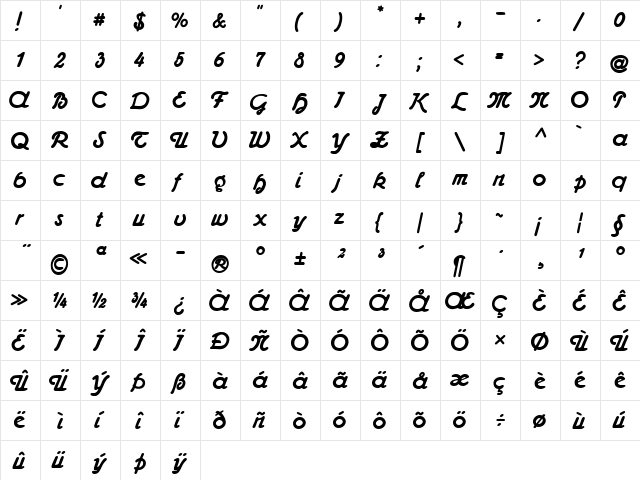
Admiral CAT Regular
| Foundry | Peter Wiegel Nach einer Hausschrift v. W. Woellmers SchriftguߠBerlin |
| Designer | Hausschrift Wilhelm Woelmers Schriftgie祲ei |
Design Context for Admiral CAT Typeface
Admiral CAT offers clean, dependable letterforms without strong stylistic allegiance, making it a practical choice for designers who need flexibility.